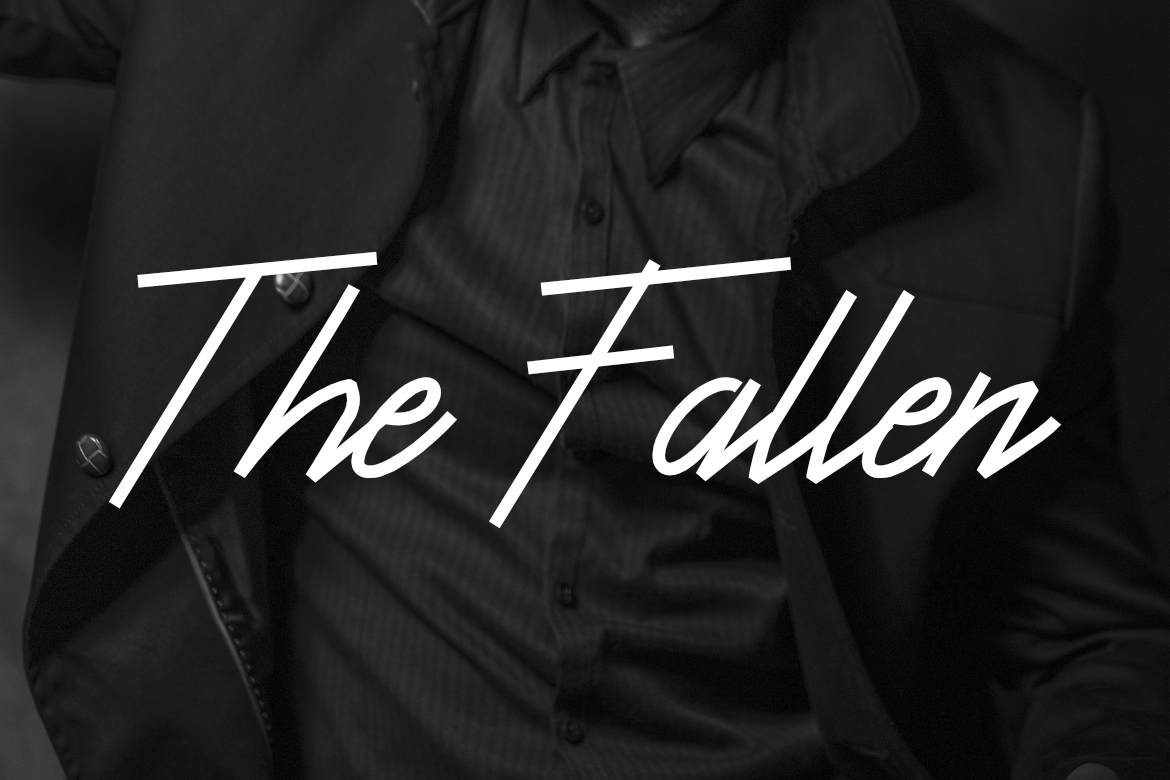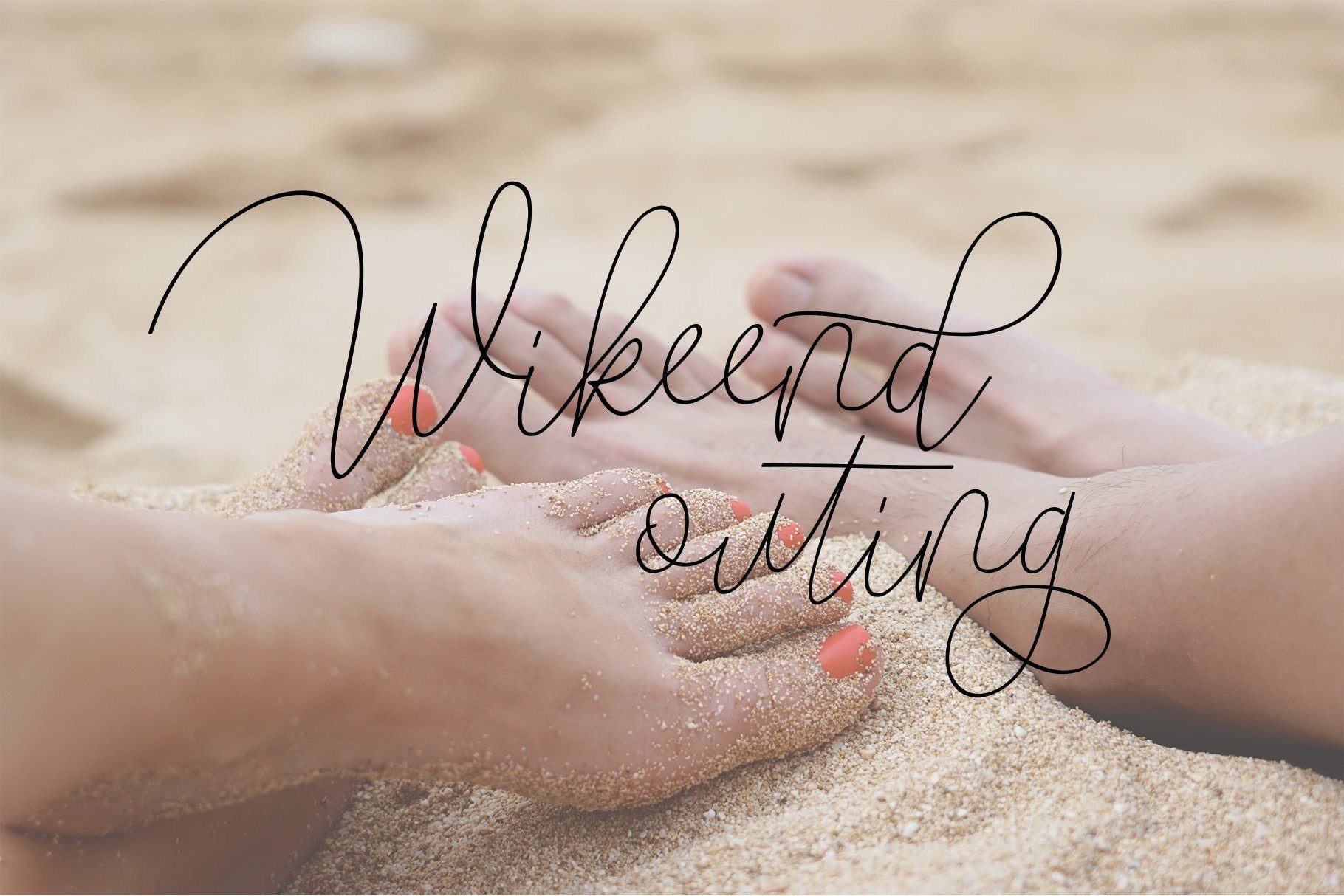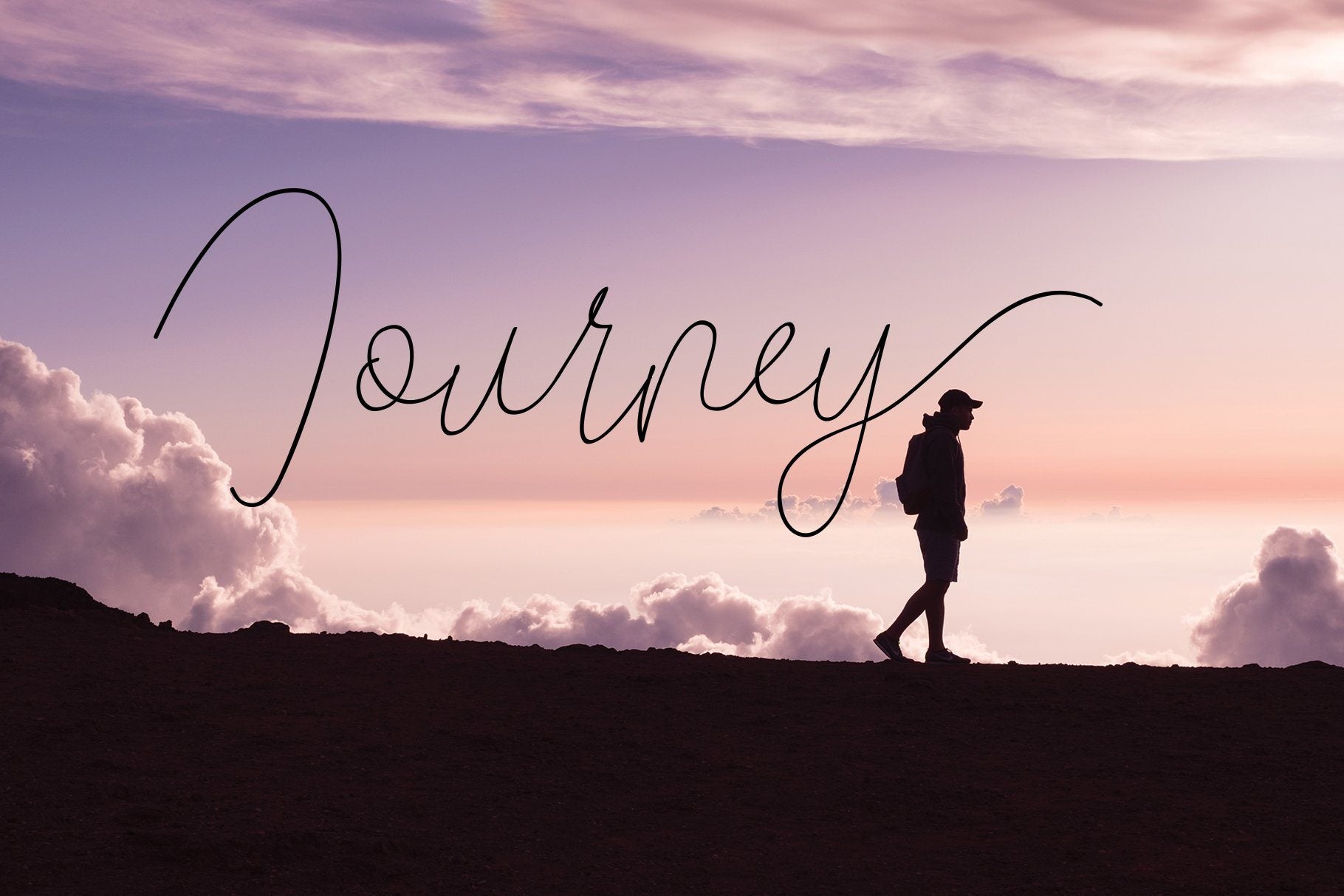
About Butty Script
Butty Script Modern Calligraphy. This font was designed by handwriting, and it has a modern and unique forms of calligraphy, the writing style is very natural. Anteater has a very unique style of calligraphy, it is very suitable for use in the work of modern design. The Features of this font is: * Standart ligatures * Stylistic Alternates * PUA Unicode (Private Use Areas) File font Include: * Butty Script OTF * Butty Script TTF * Butty Script WEB (EOT, SVG, WOFF) Can be used for various purposes.such as headings, logos, wedding invitation, t-shirt, letterhead, lable, news, posters, badges etc. To enable the OpenType Stylistic alternates, you need a program that supports OpenType features such as Adobe Illustrator CS, Adobe Indesign & CorelDraw X6-X7.a font that made the hand by having the character up and down like a dancer. Anteater has a very unique style of calligraphy, it is very suitable for use in the work of modern design. Can be used for various purposes.such as headings, logos, wedding invitation, t-shirt, letterhead, lable, news, posters, badges etc. To enable the OpenType Stylistic alternates, you need a program that supports OpenType features such as Adobe Illustrator CS, Adobe Indesign & CorelDraw X6-X7.a font that made the hand by having the character up and down like a dancer. Anteater has a very unique style of calligraphy, it is very suitable for use in the work of modern design. Can be used for various purposes.such as headings, logos, wedding invitation, t-shirt, letterhead, lable, news, posters, badges etc. To enable the OpenType Stylistic alternates, you need a program that supports OpenType features such as Adobe Illustrator CS, Adobe Indesign & CorelDraw X6-X7.a font that made the hand by having the character up and down like a dancer. Anteater has a very unique style of calligraphy, it is very suitable for use in the work of modern design.